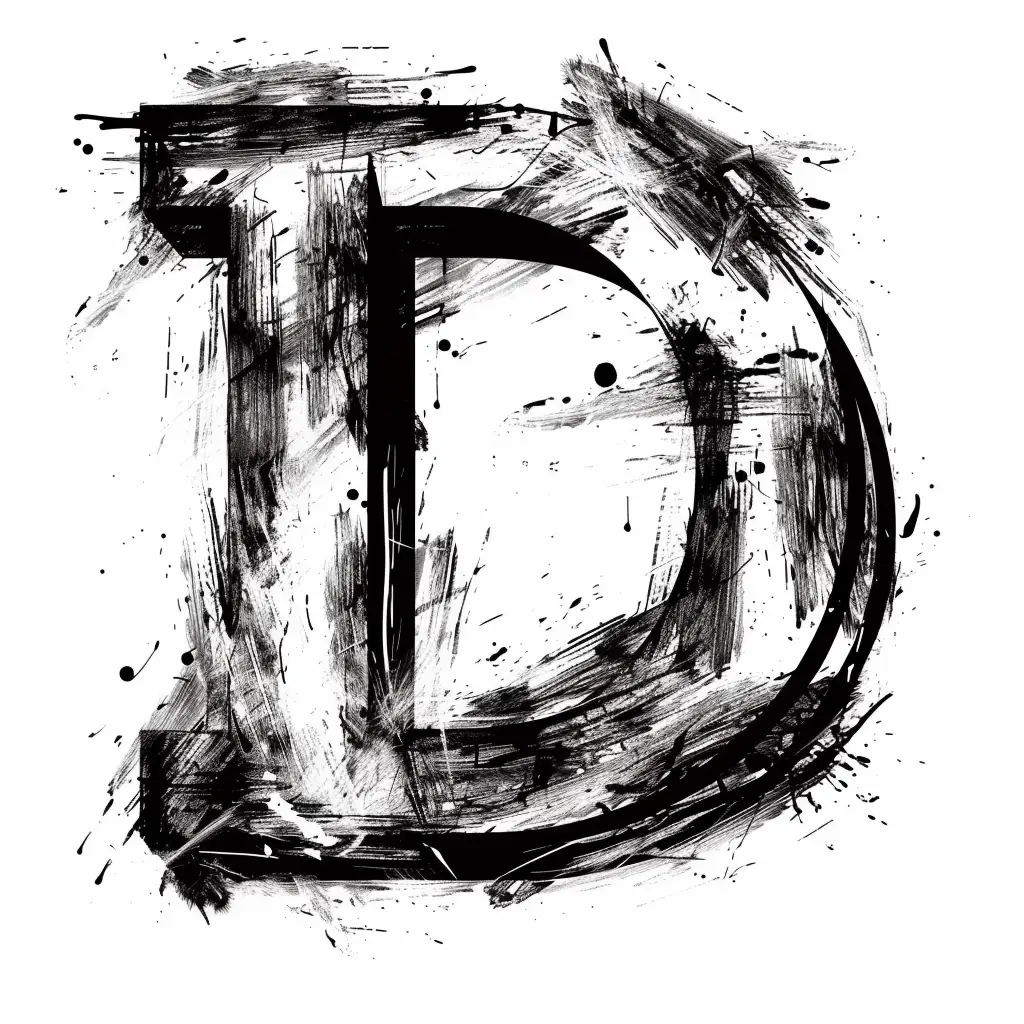
The image features a stylized, black letter "D" rendered in a rough, brushstroke-inspired artistic style. The design incorporates dynamic splatters, smudges, and textured lines, creating a gritty, expressive effect against a plain white background. The monochromatic color scheme emphasizes the bold, hand-drawn aesthetic of the letter.